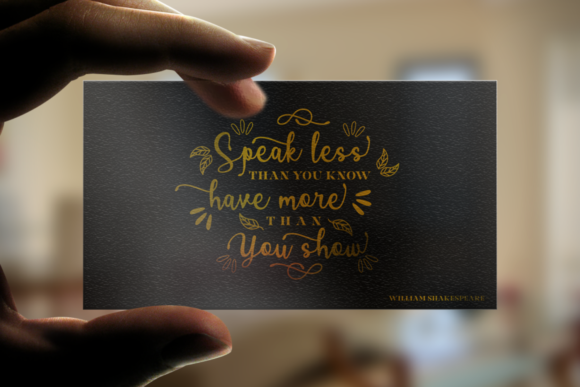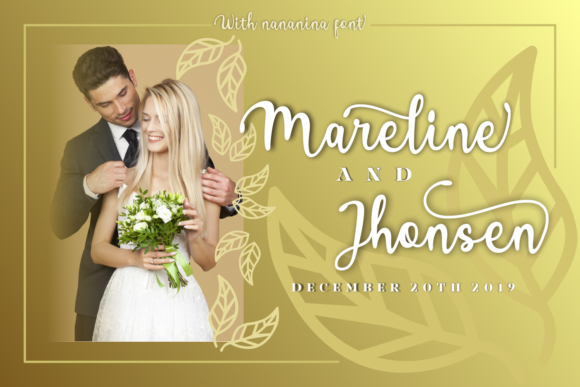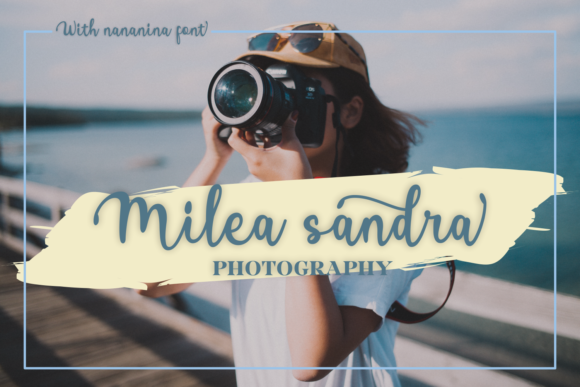
Introduction to Nananina Font
Nananina is a fun and elegant handwritten font that will turn any design project into a stunner.
👤 Author Dani (7NTypes)
Fall in love with its romantic elements .
Key Features of Nananina Font
Why Choose Nananina Font?
Nananina Font offers exceptional quality and versatility, making it a valuable addition to your design toolkit. Whether you’re creating for personal projects or commercial use, Nananina Font delivers professional results.